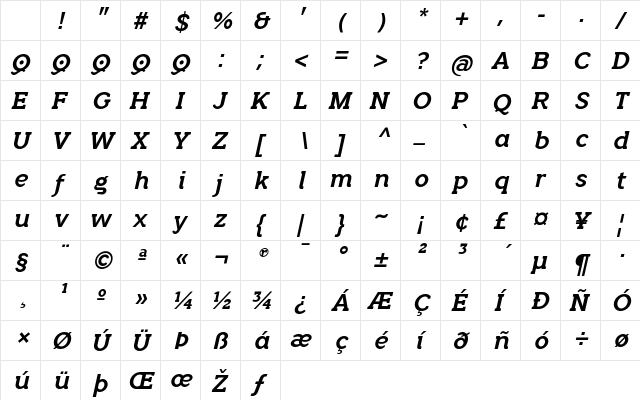
Quotus is a composed and adaptable typeface that performs quietly and consistently across a wide range of design contexts. The slanted form adds forward momentum and visual energy. Its bold stroke weight gives it real presence on the page.
Pro Tip: Use Quotus for emphasis, pull quotes, and subheadings where its slanted energy can add rhythm to the layout.